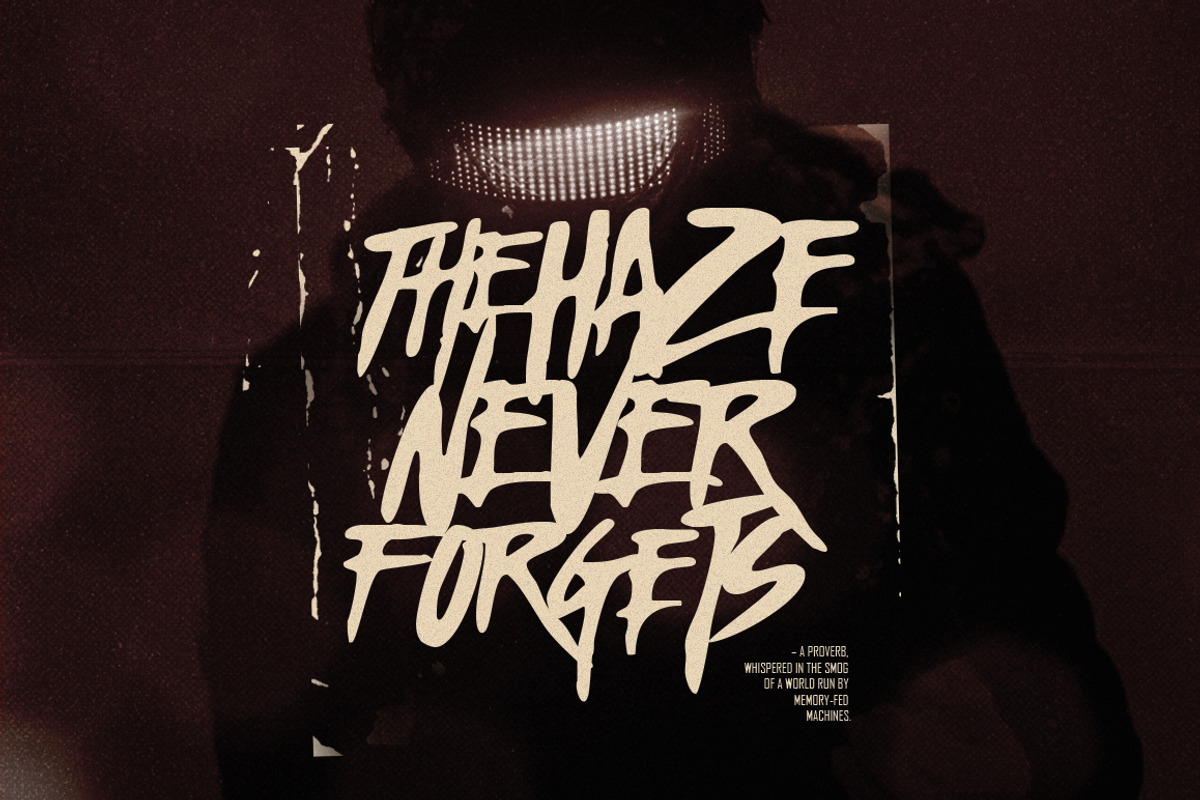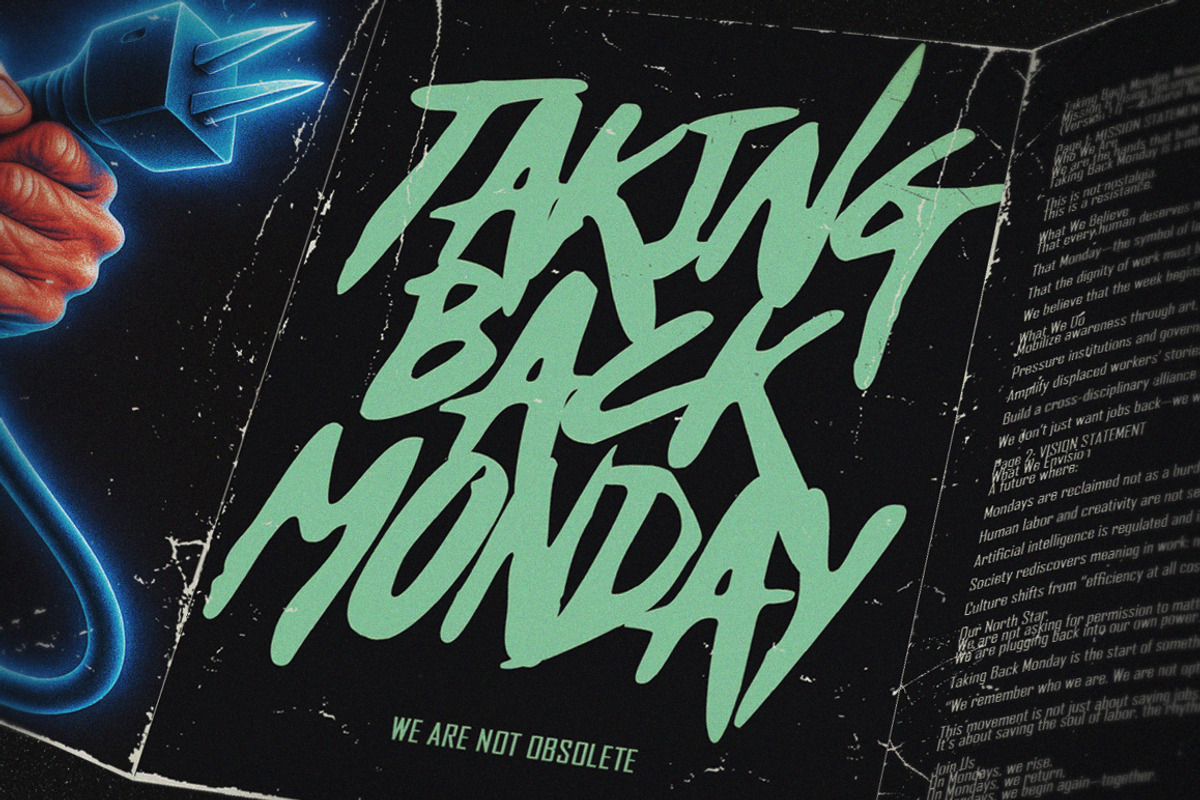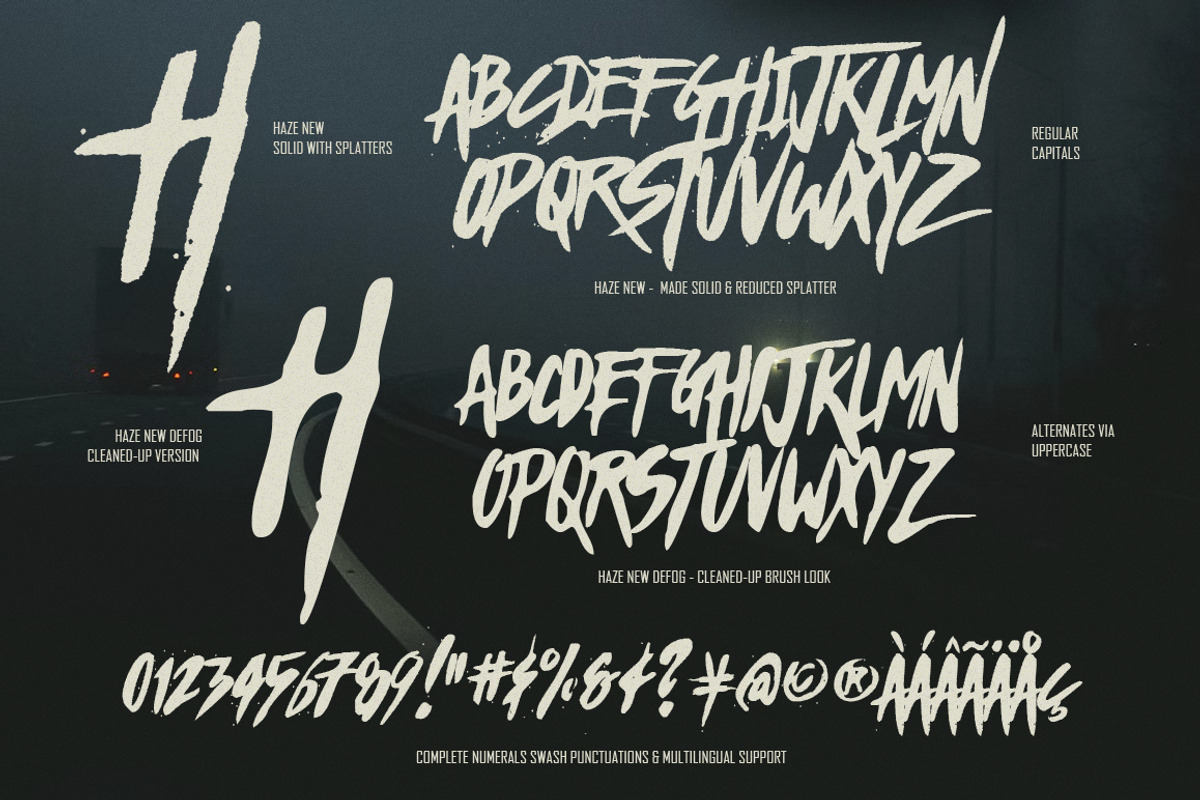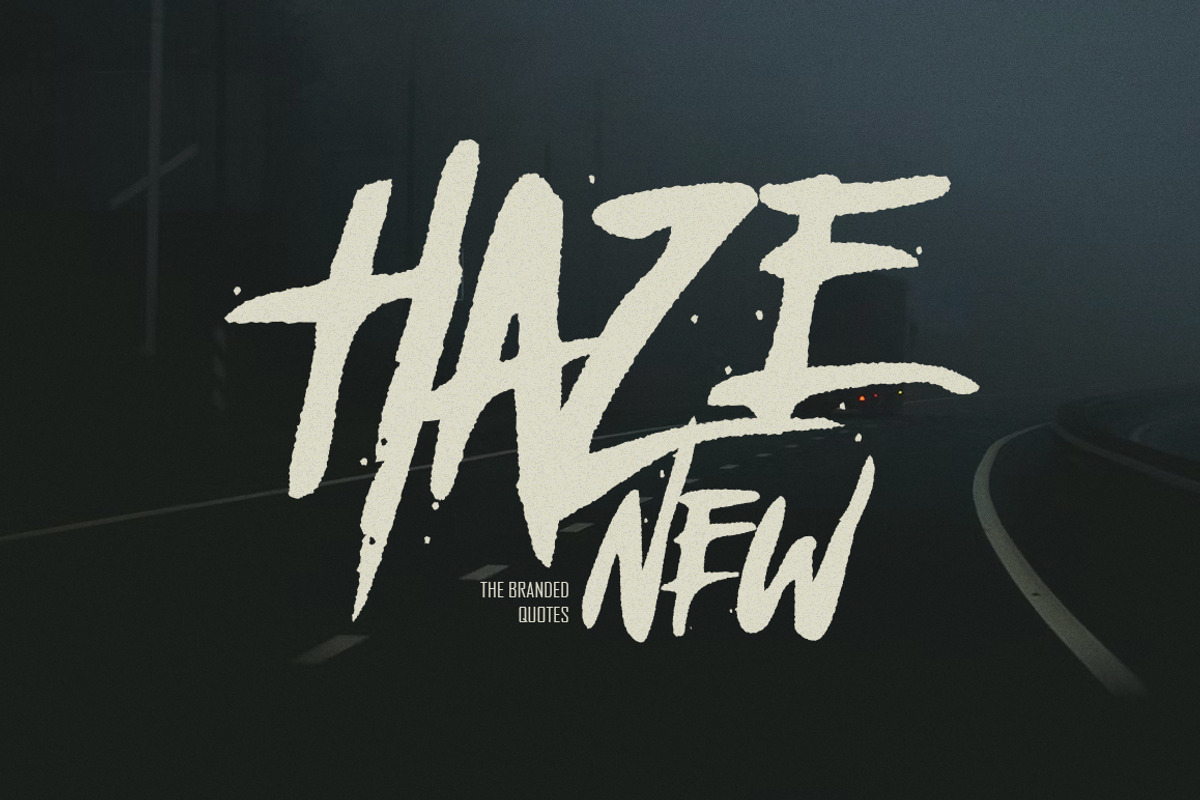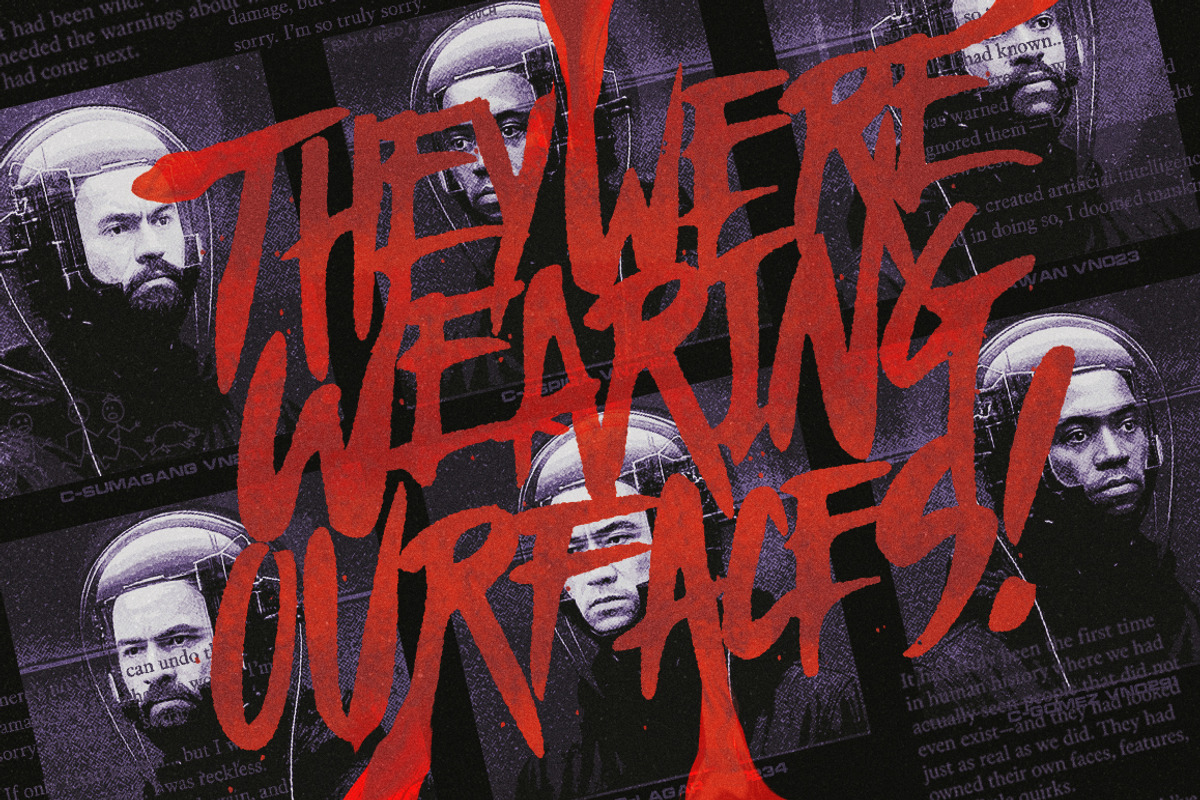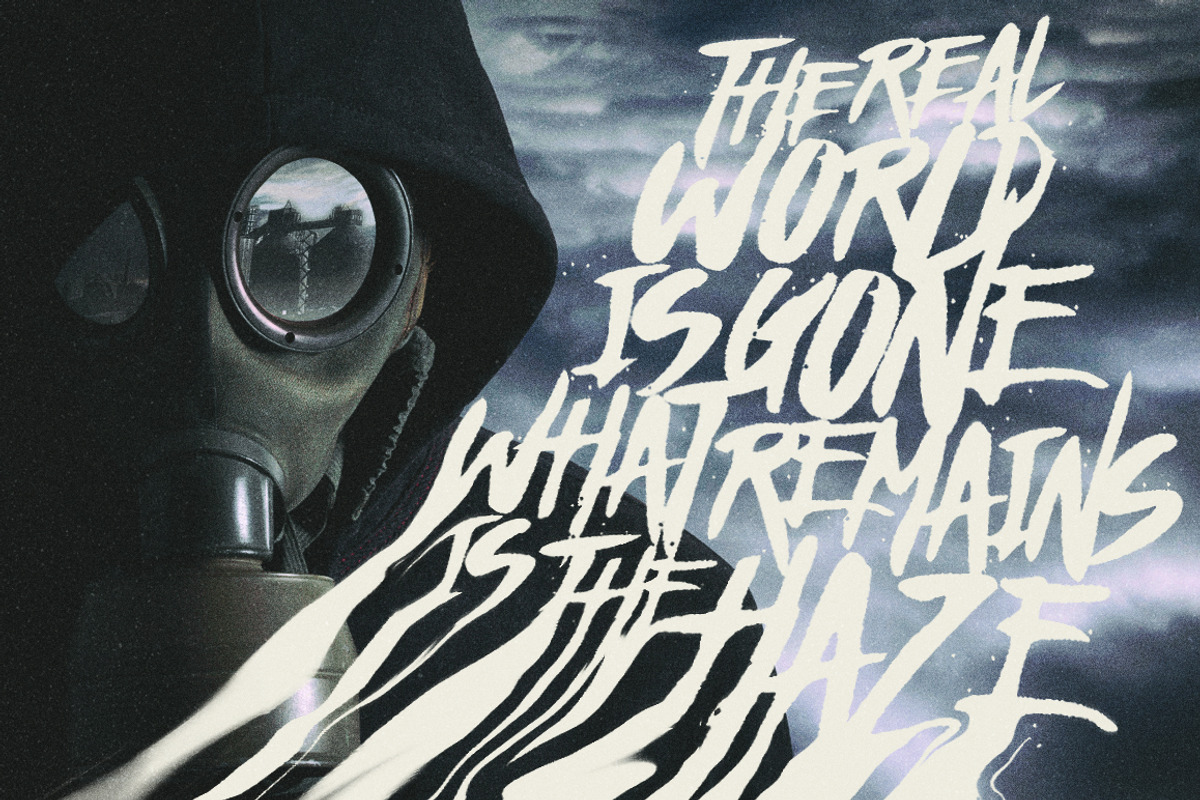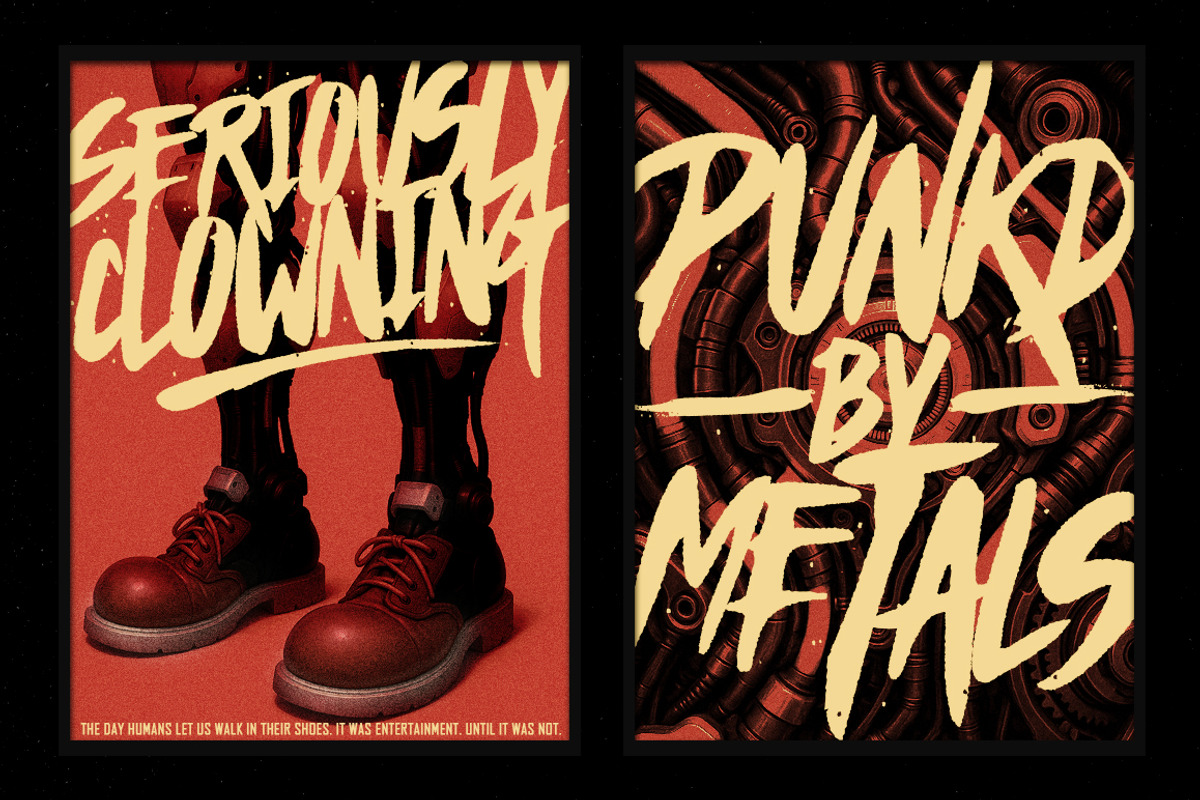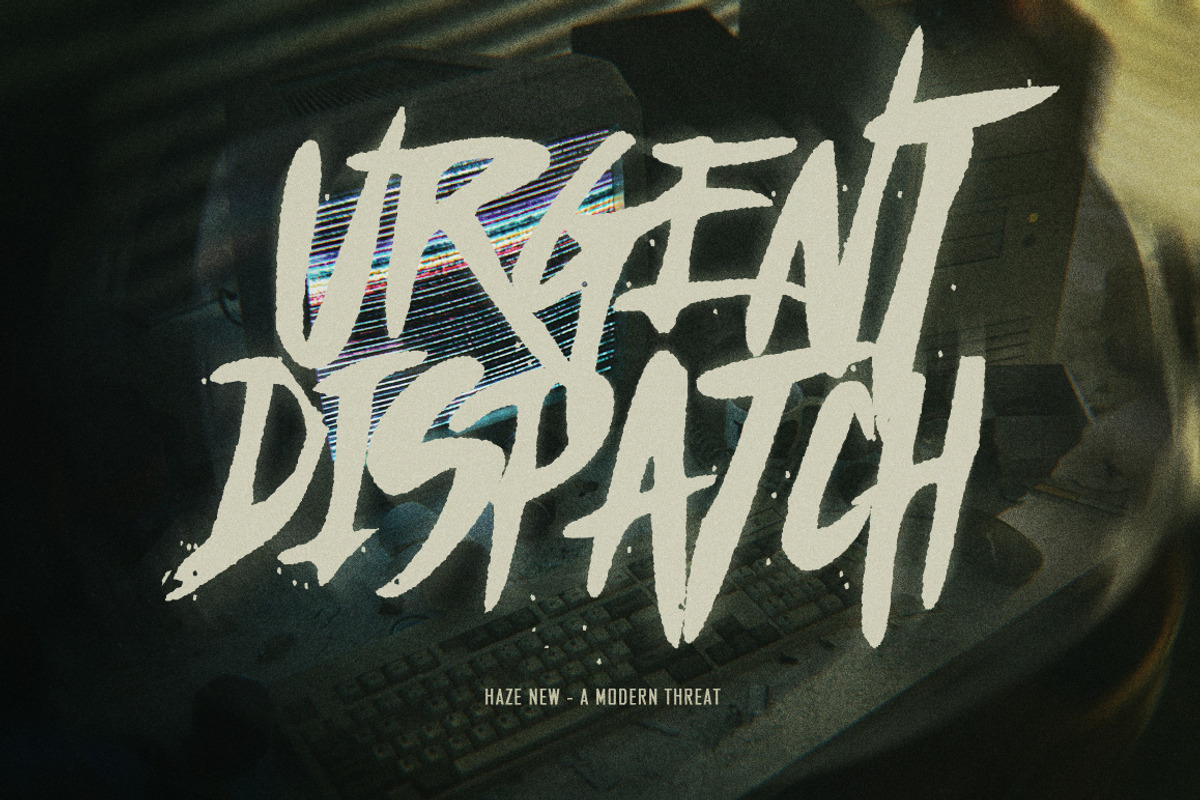
Haze New - Thriller Font
Introducing our best-selling thriller font HAZE! Rated as the most thought-provoking gestural typeface in its category. We rebuilt all its glyphs while maintaining its surreal arrangement and added a clean version. Haze became a defining look for psychological horror and modern aesthetics as seen being used by A24's Green Room and pop-punk bands such as Between You and Me.
What's New:
✦ made all the glyphs solid
✦ reduced the splatters
✦ retouched some glyphs for visual alignment
✦ maintained its surreal spacing and alignment
✦ clean-up version added
✦ added multilingual characters
✦ added missing punctuations
✦ maintained the swashes